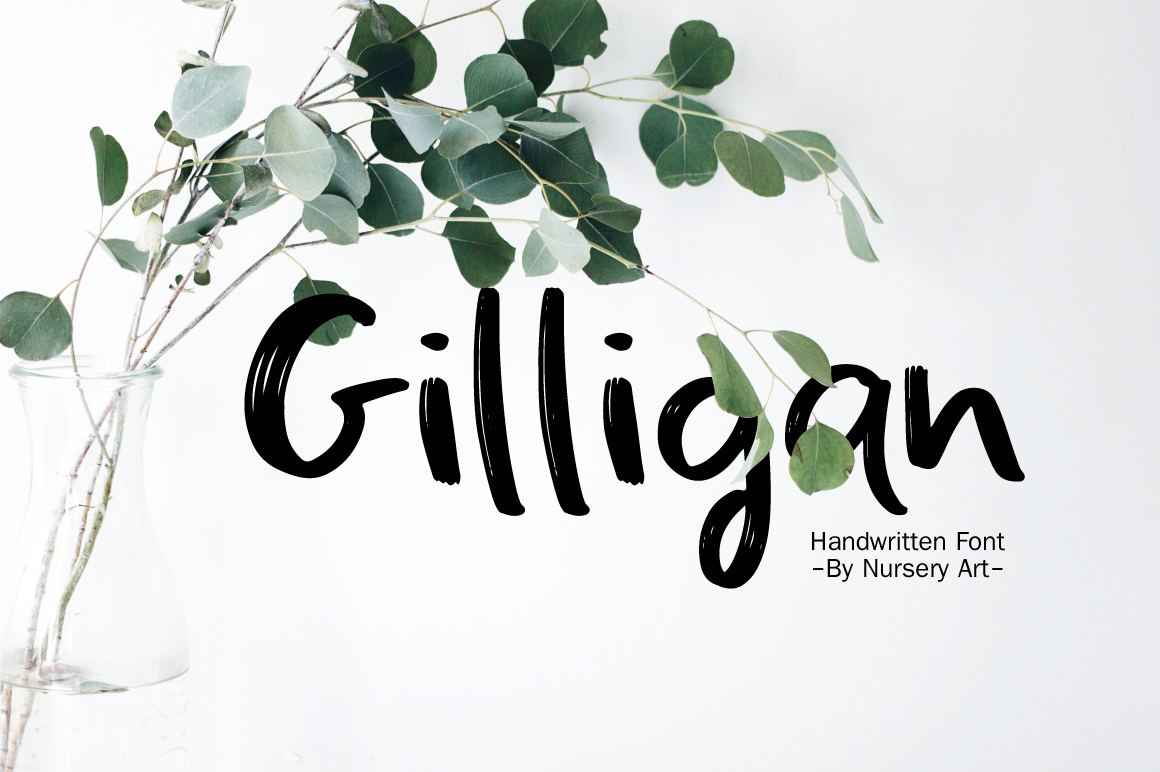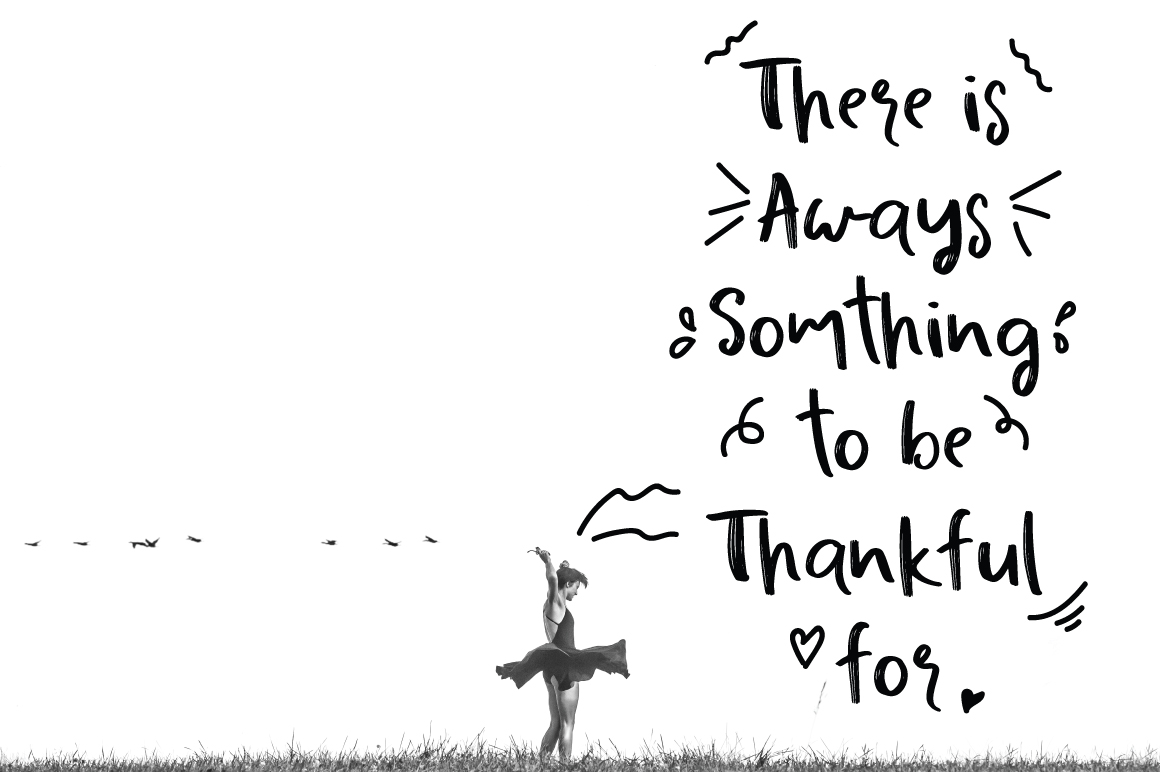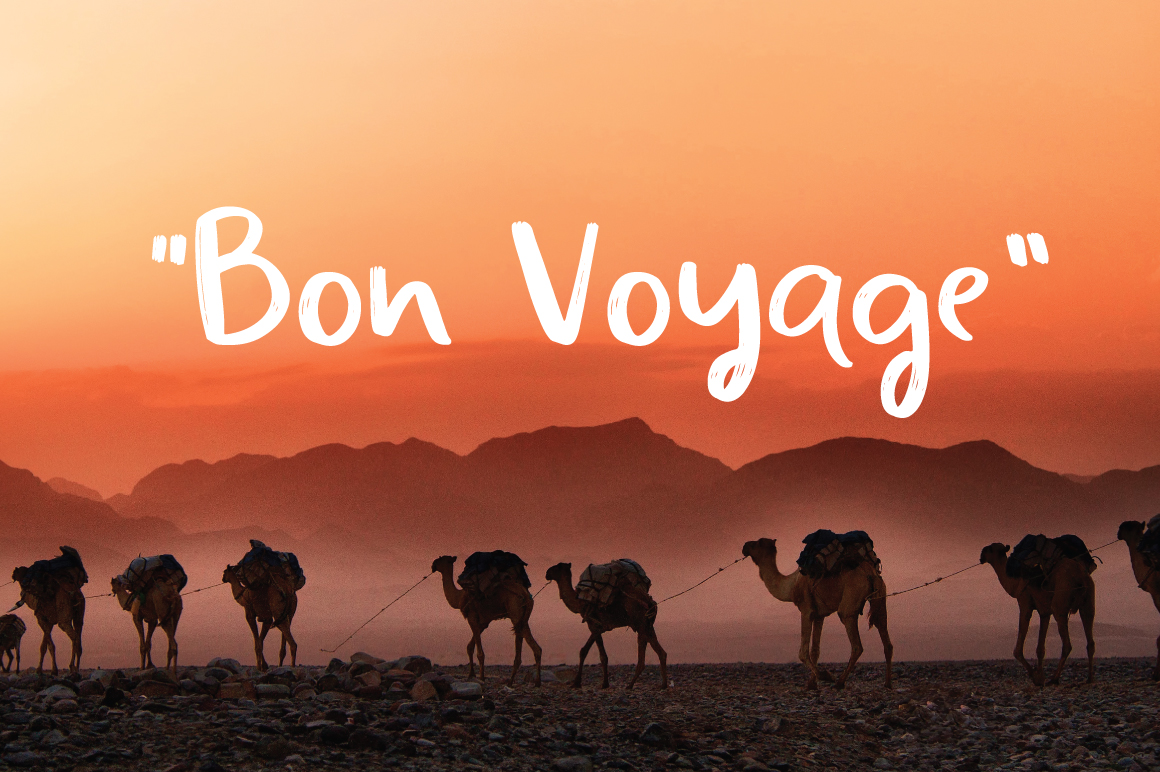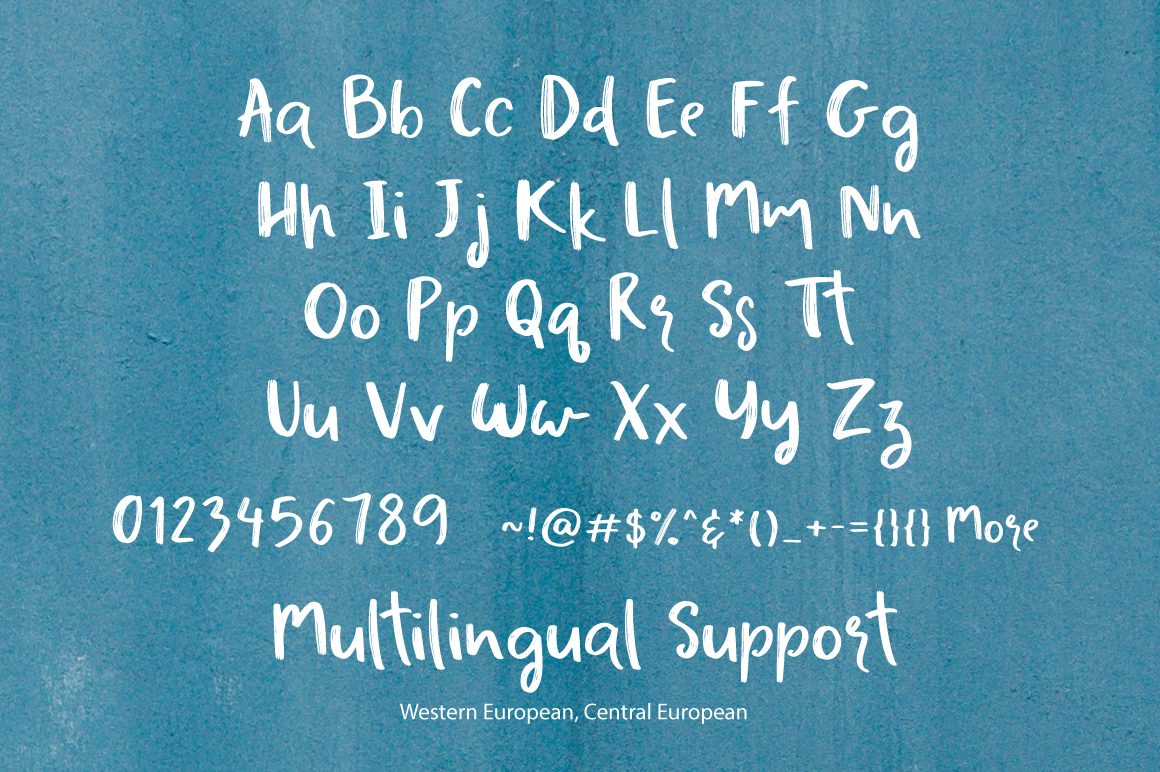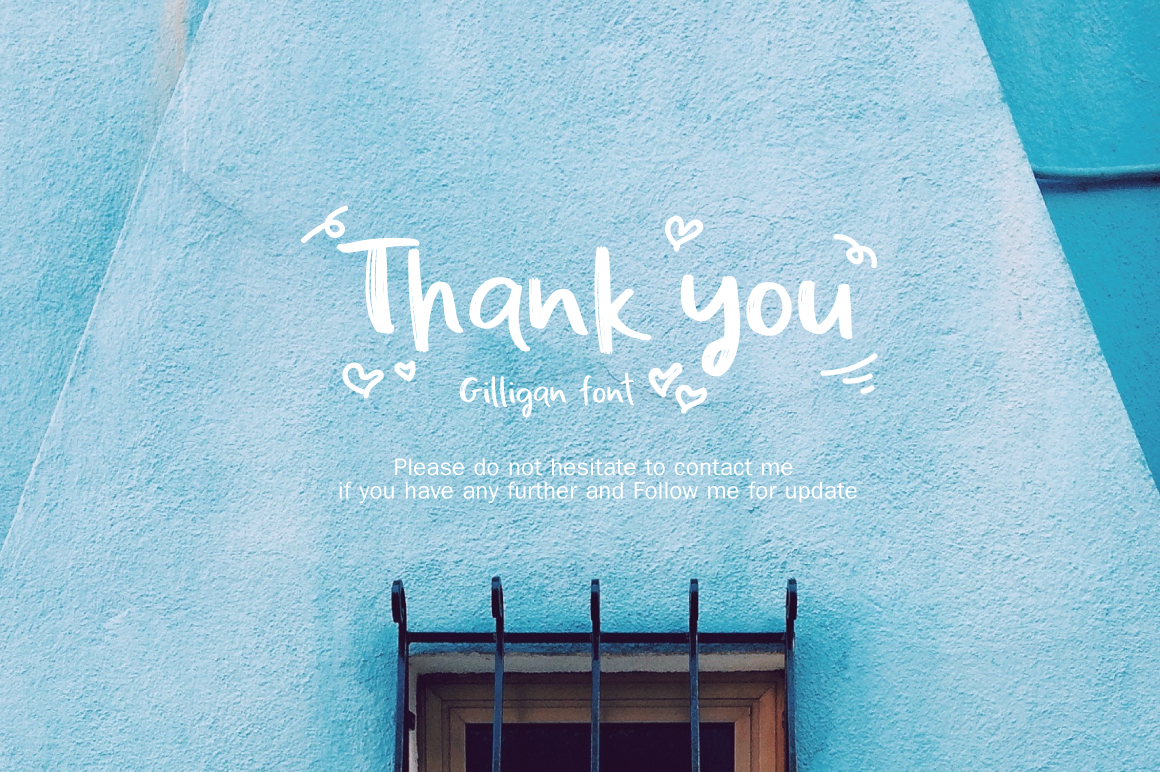
Gilligan Font
About Gilligan Font
Gilligan is a handwritten, modern script font. It’s unique comes from its brush like quality, making it a smart option for a number of display ideas.
Clean and simple, Gilligan is a great asset to have in your font collection.